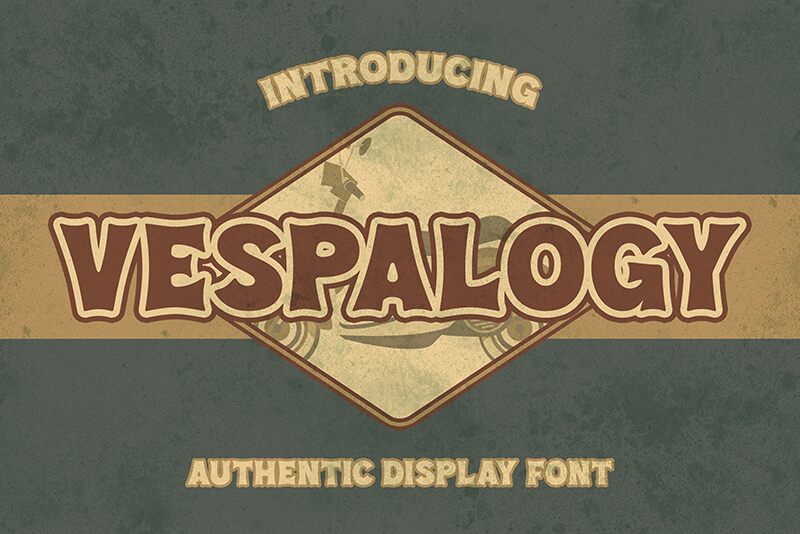
Vespalogy
Vespalogy is a magnificent display font designed by Almarkhatype that exudes a vintage vibe. Its extra-bold weight adds an element of strength and boldness to any project, making it perfect for creating eye-catching headlines, posters, and logos. This unique font style offers endless possibilities for both print and digital projects, from retro-themed designs to modern-day branding. The semi-serifs in Vespalogy give it an air of sophistication while retaining its vintage charm. Whether you're designing a fashion magazine or creating graphics for a motorcycle brand, Vespalogy is the perfect typeface to make your project stand out from the rest.